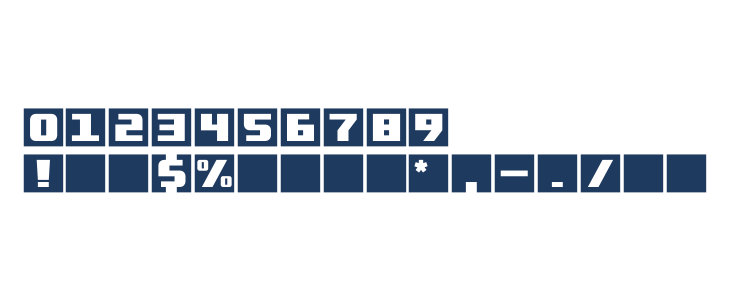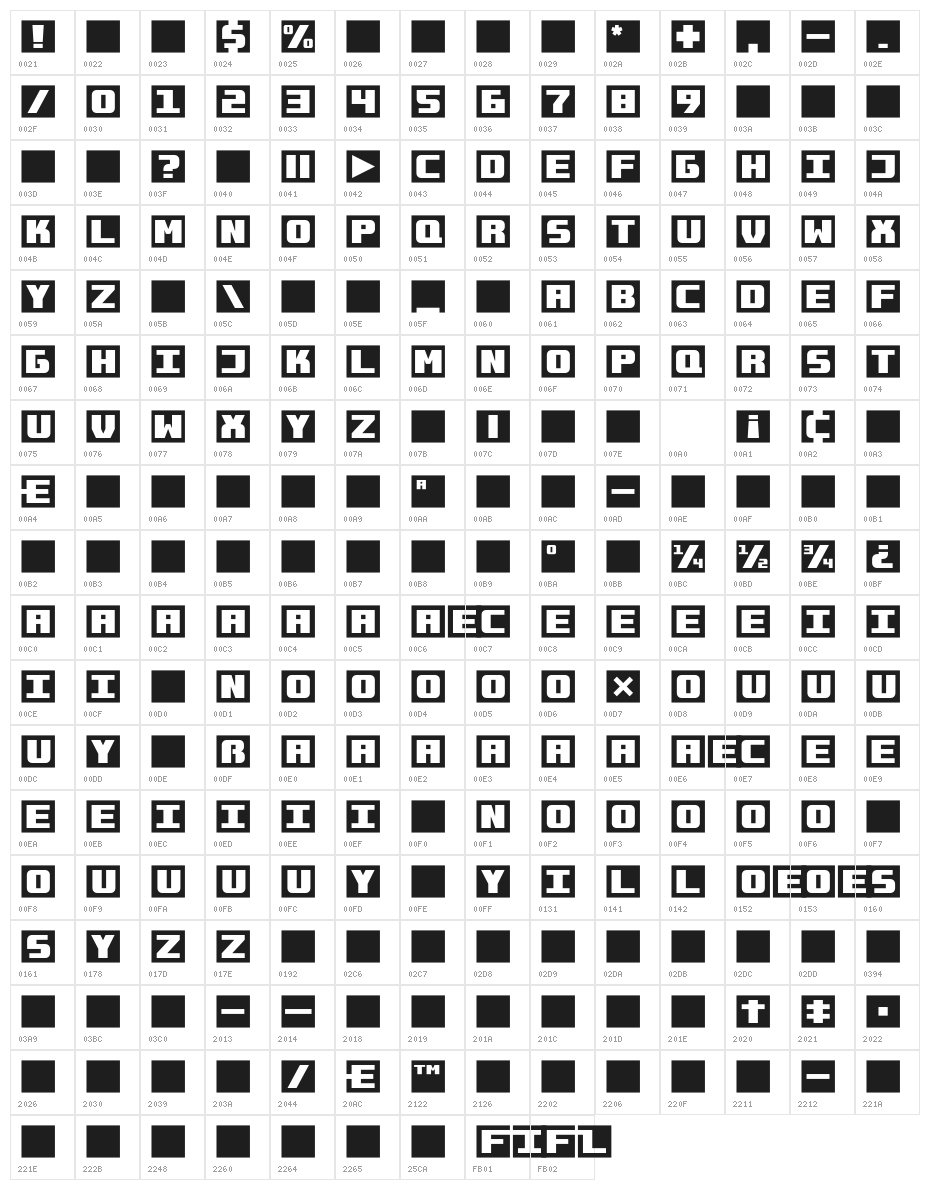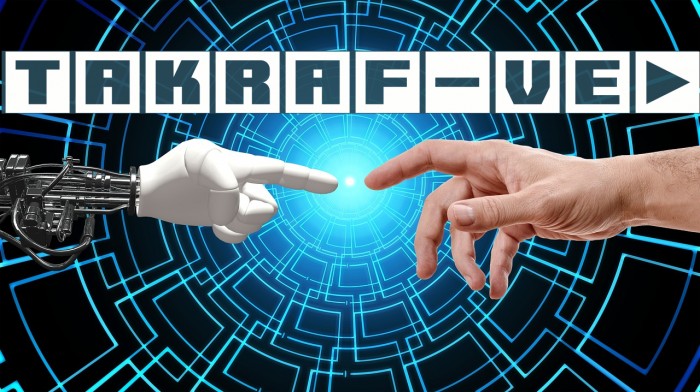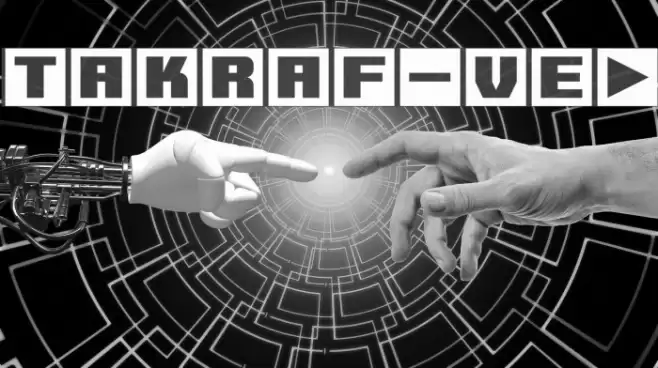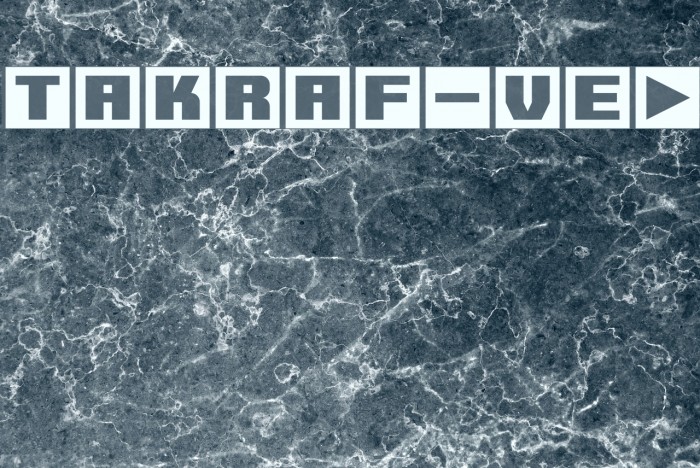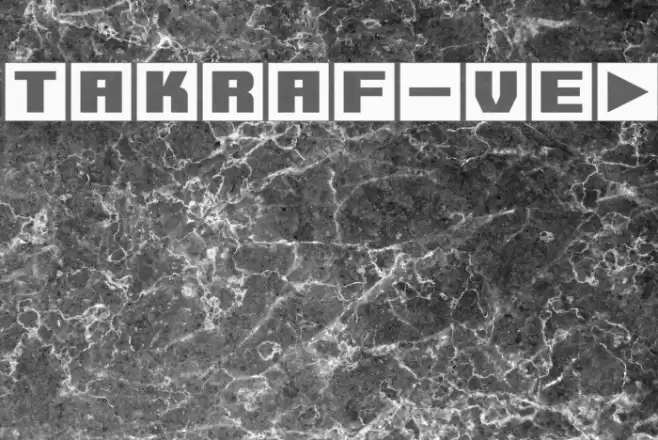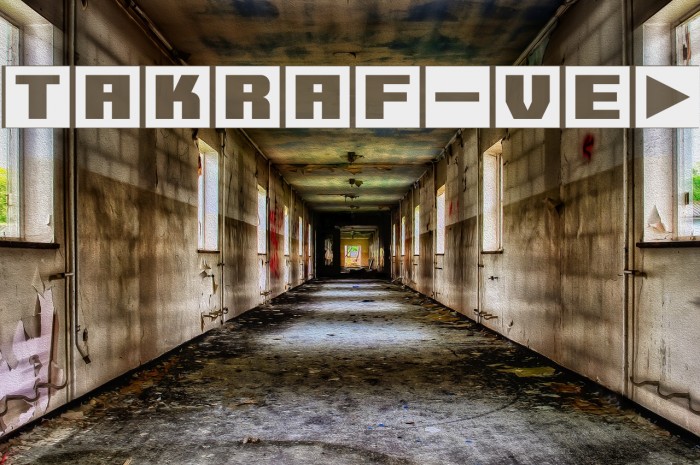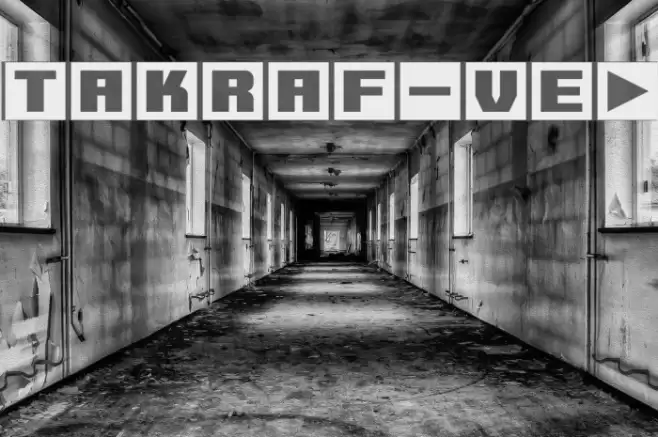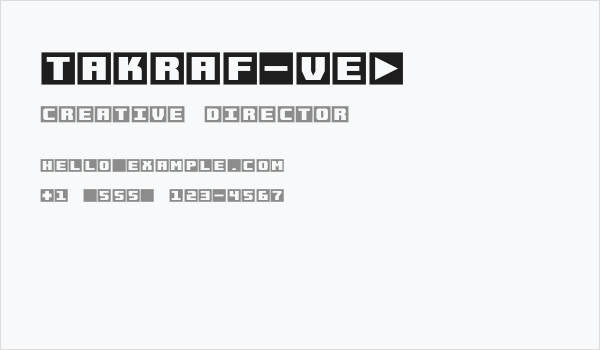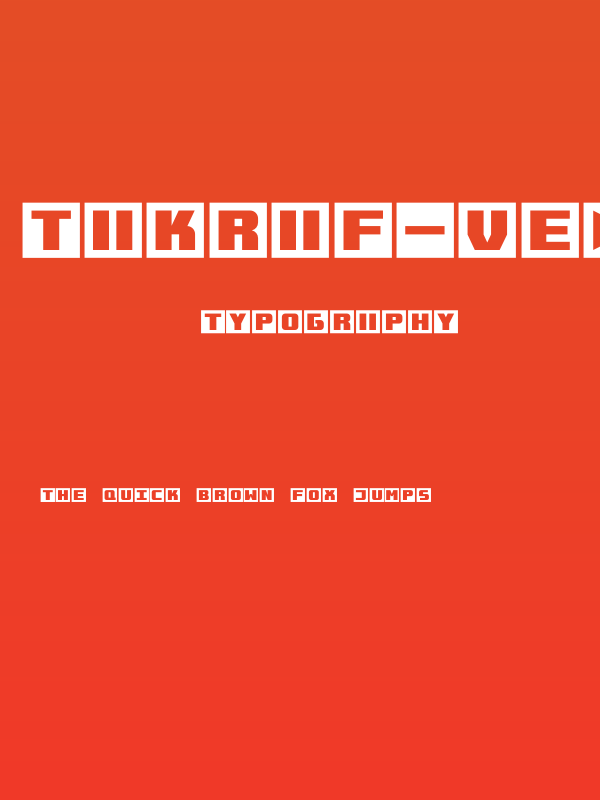
Takraf-VEB Font
Takraf-VEB Description
This font features a bold, geometric design with each character enclosed in a square or rectangular block, creating a strong and impactful visual presence. The characters are uniformly aligned, offering a sense of order and precision. The style is reminiscent of industrial or mechanical aesthetics, with sharp angles and a consistent stroke width throughout. The uppercase and lowercase letters are identical, emphasizing uniformity. The numbers and special characters maintain the same blocky structure, ensuring cohesion across all elements. This font's distinct style makes it suitable for projects requiring a bold and assertive typeface.
| Overall Style | Industrial, Modern |
| Proposed Projects | Ideal for industrial-themed branding, signage, posters, and any project requiring a strong visual impact. |